Finding the best fonts for social media ads and promotions can be the difference between a campaign that gets ignored and one that stops users mid-scroll. Many businesses spend hours creating attractive visuals, writing compelling copy, and choosing the perfect images, yet their ads still feel flat or uninspiring.
One common reason is typography.
Fonts are often underestimated in social media marketing. However, typography plays a major role in communicating emotion, creating hierarchy, and attracting attention in crowded feeds. The right font can instantly make an ad feel energetic, premium, modern, playful, or trustworthy.
Whether you’re designing Instagram promotions, Facebook ads, TikTok content, Pinterest graphics, or digital banners, choosing the right font helps your message stand out and improves overall campaign performance.
In this guide, we’ll explore some of the best fonts for social media ads and promotions, including recommended use cases and practical design inspiration.
Why Fonts Matter in Social Media Advertising
Social media users scroll quickly. Research consistently shows that content creators and brands have only a few seconds to capture attention before users move on.
Typography helps achieve this by:
- Creating visual impact
- Improving readability
- Establishing brand personality
- Highlighting key messages
- Supporting conversion goals
A strong font choice can transform a simple promotion into a highly engaging visual asset.
What Makes a Great Social Media Font?
The most effective fonts for advertising usually offer:
- Strong readability
- Clear hierarchy
- Distinct personality
- Mobile-friendly appearance
- Versatility across platforms
When used correctly, typography becomes one of the strongest tools in your design system.
Recommended Fonts for Social Media Ads and Promotions
1. Casendro
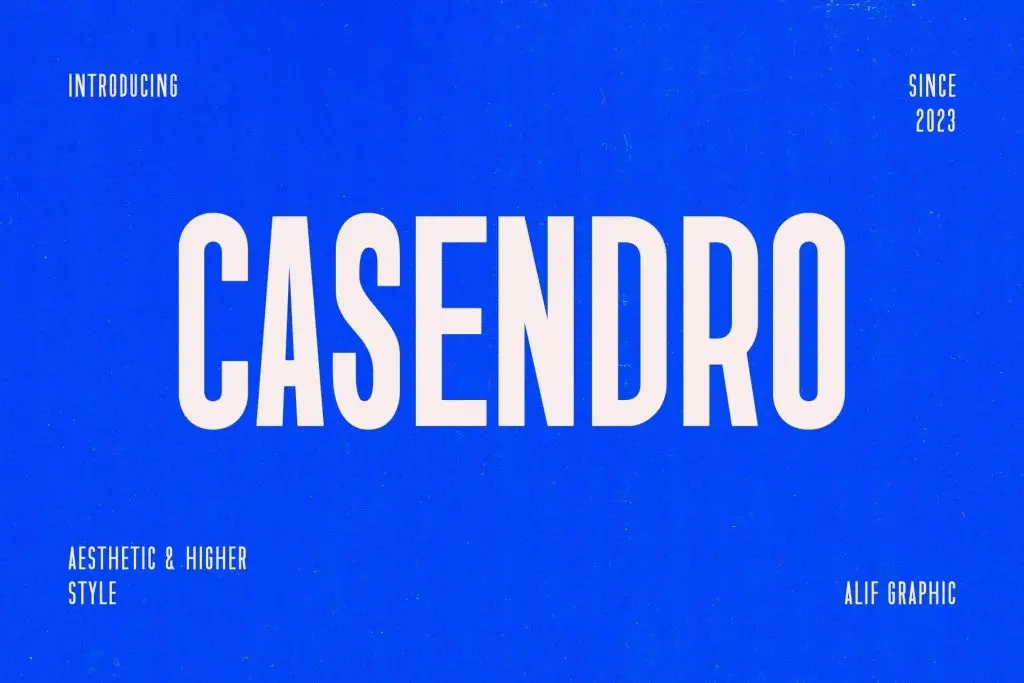
Casendro is a modern higher sans-serif font with bold, sleek all-caps styling. Perfect for impactful headlines, branding, and social media designs that demand attention and modern appeal.
2. Govers
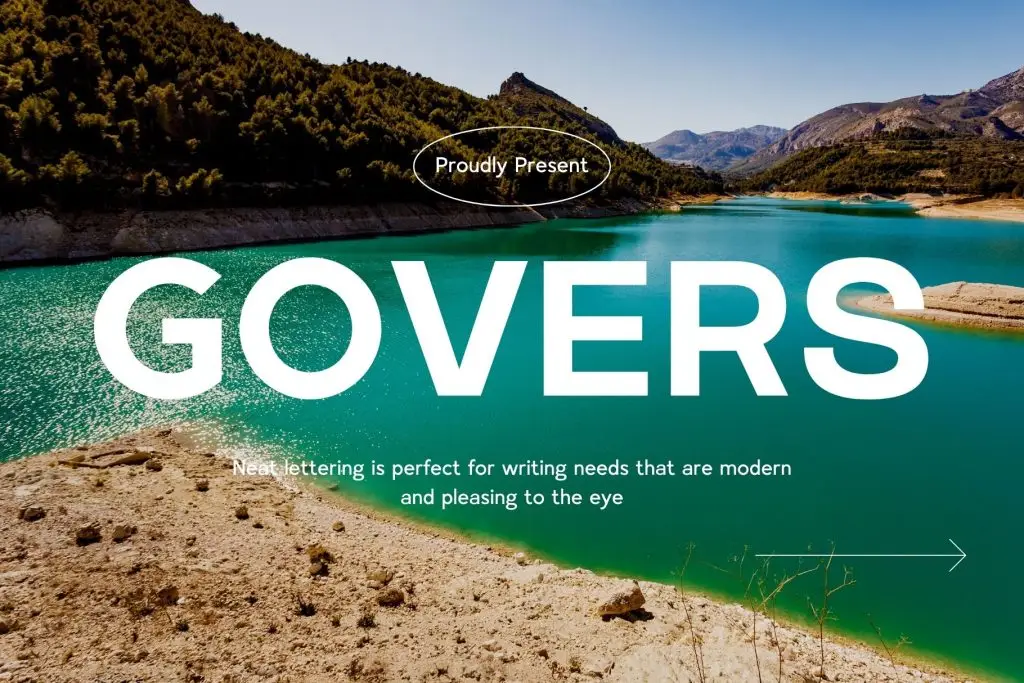
Govers is a modern sans-serif font with clean lines and balanced proportions. Ideal for web design, social media, and branding, it delivers a sleek, professional, and easy-to-read look.
3. Jacob’s
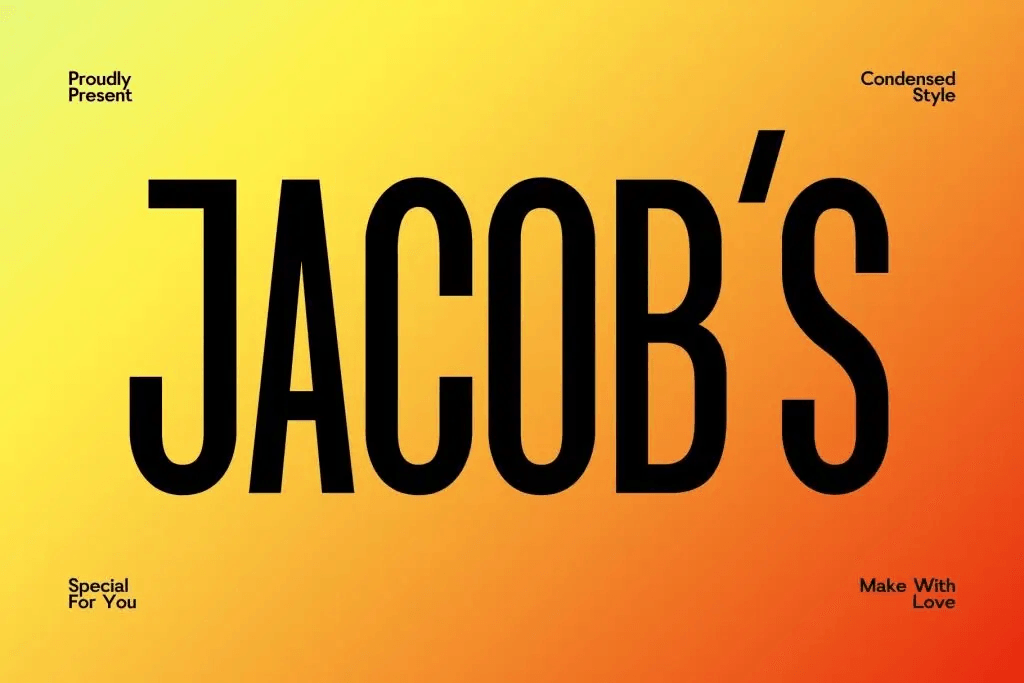
Jacob’s is a modern condensed sans-serif font featuring sleek, readable letterforms. Ideal for web design, social media, advertising, and apparel, it brings contemporary elegance and versatility to any creative project.
4. Tracey Jodgey
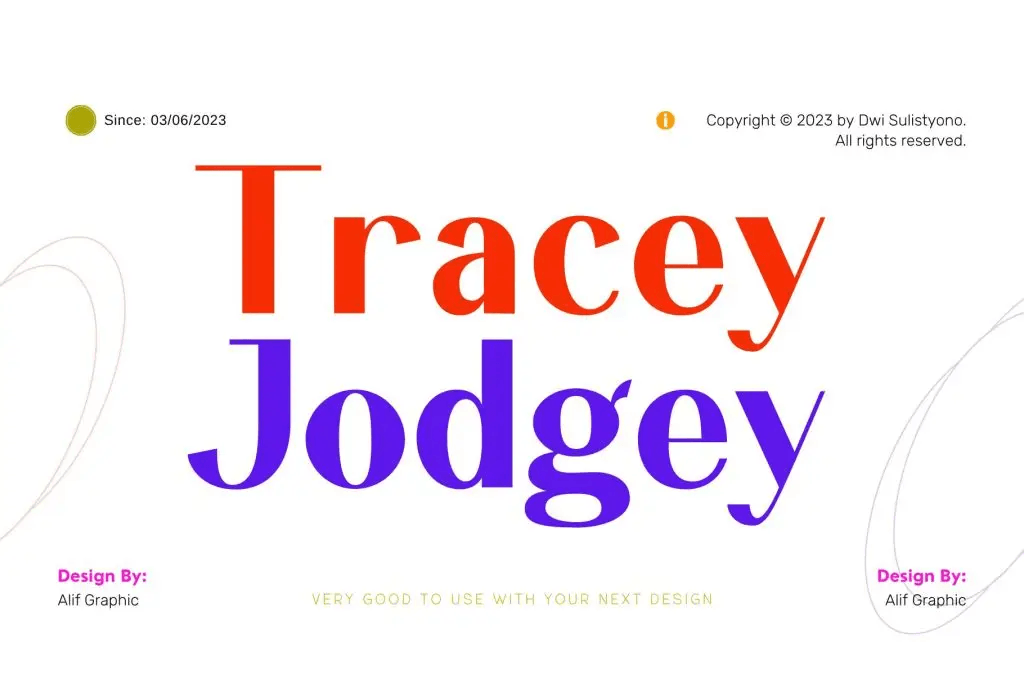
Tracey Jodgey is a modern sans-serif font that blends elegance with contemporary style. Ideal for beauty, fashion, social media, and creative projects, it elevates your typography with refined sophistication.
5. Gafhote
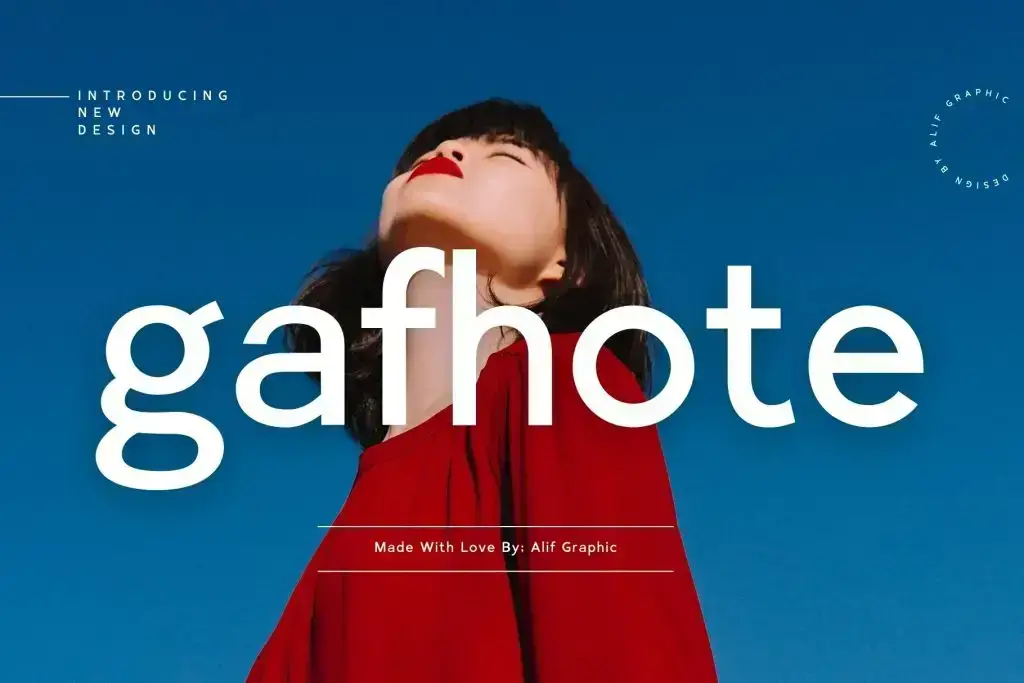
Gafhote is a modern sans-serif font featuring neat letters. Perfect for social media, advertising, and personal branding, it adds sophistication and contemporary style to your creative projects.
6. Schindler
Schindler is a modern serif font featuring elegant and meticulously crafted letters. Ideal for beauty, fashion, social media, and versatile design projects, it adds sophistication, polish, and a contemporary flair to your creative work.
7. Fishera
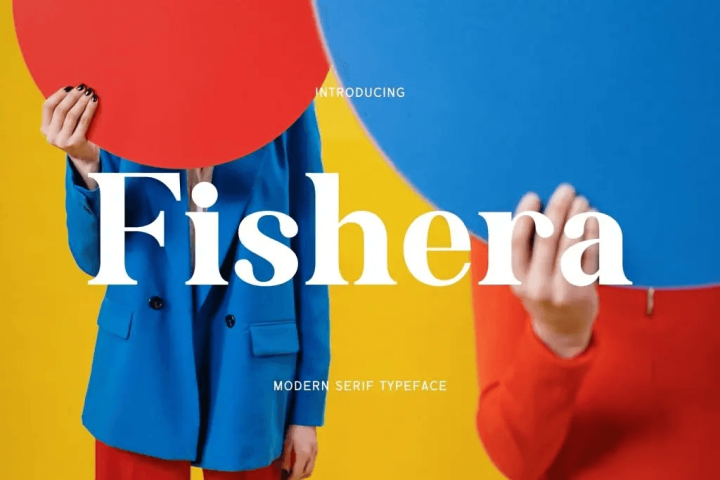
Fishera is a modern serif font with elegant, meticulously crafted letters. Ideal for beauty, fashion, advertising campaigns, and social media designs, it brings refined sophistication and timeless style to any creative project.
8. Baigont
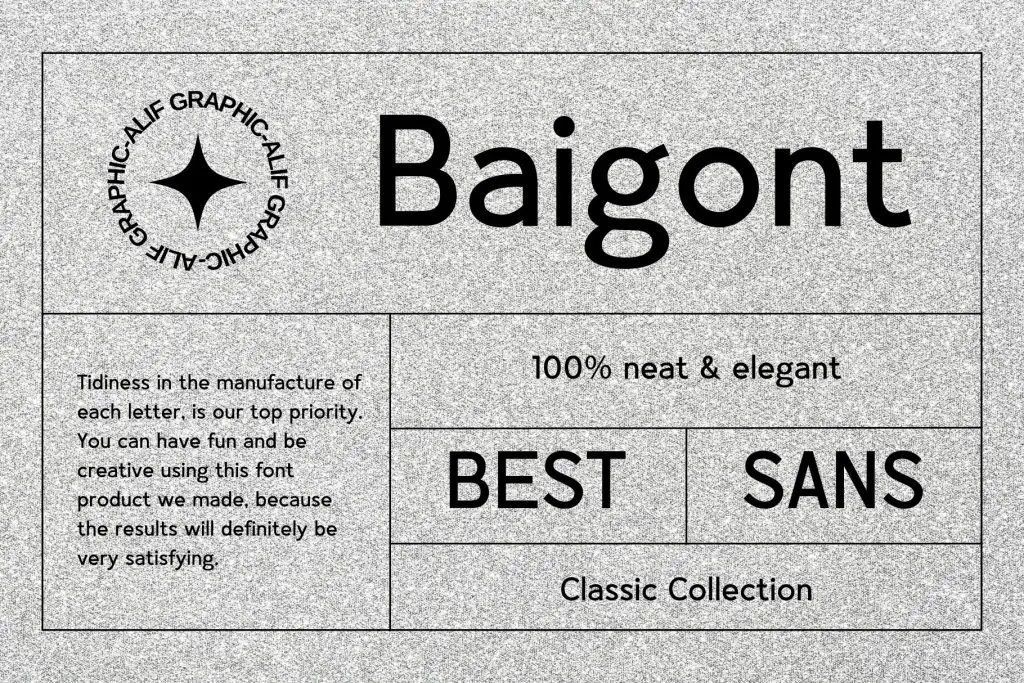
Explore the captivating ‘Baigont’ font, where a beautiful series of letters converges to elevate your writing experience. The meticulous, neat lettering is tailored to fulfill modern writing needs, offering a seamless fusion of contemporary style and visual appeal
9. Reghita
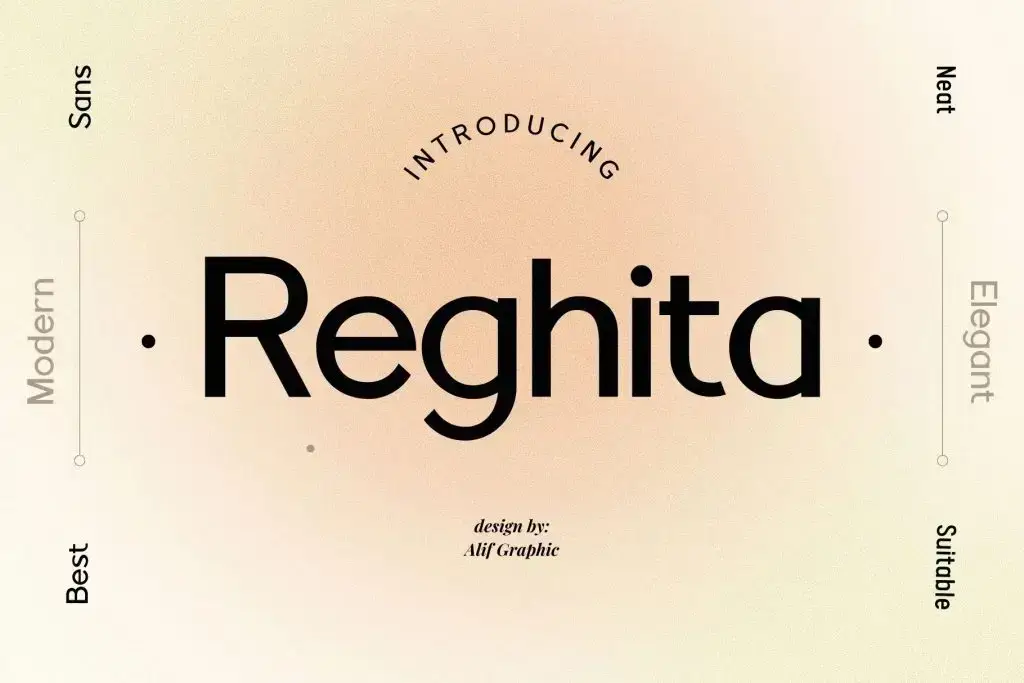
Reghita is a modern sans-serif font with clean, elegant lettering, ideal for web design, social media graphics, advertising, and creative projects. Perfect for designers seeking contemporary and polished typography.
10. Fagheto
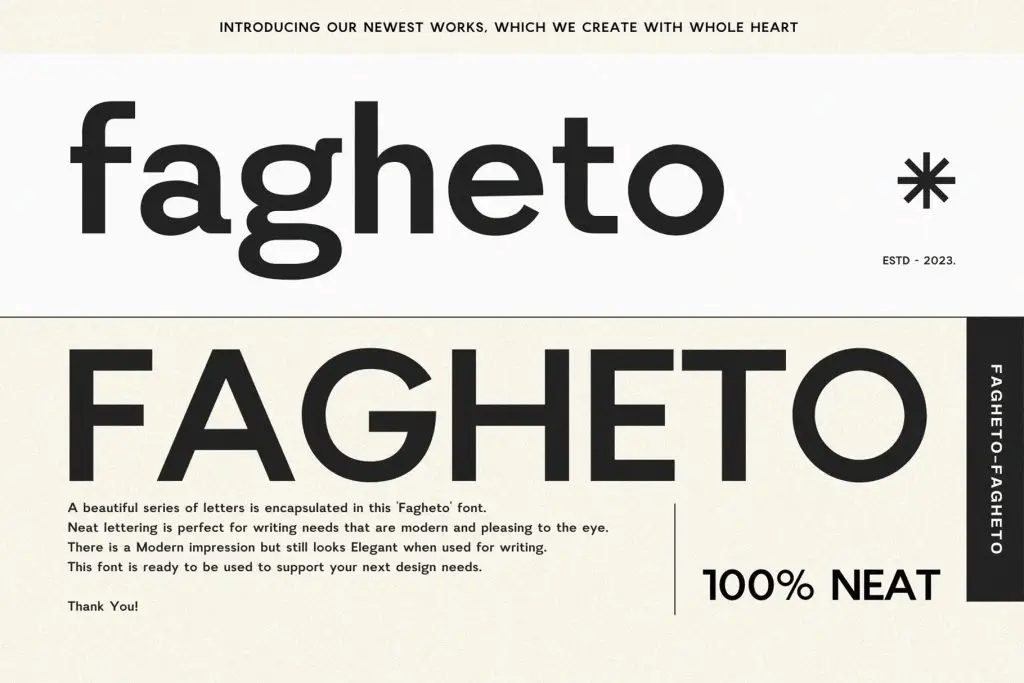
Fagheto is an elegant and bold sans-serif font ideal for wedding invitations, social media, web design, and creative projects.
Best Use Cases for Social Media Fonts
Different campaigns require different typography approaches.
Understanding the best use cases helps maximize effectiveness.
Instagram Promotions
Instagram relies heavily on visual communication.
Fonts should:
- Be readable on mobile devices
- Create strong hierarchy
- Support brand consistency
Casendro and Gafhote work particularly well for Instagram promotions.
Facebook Advertising
Facebook ads often contain more text than Instagram graphics. Typography should remain clear while maintaining visual appeal.
Govers and Schindler are excellent options for Facebook campaigns.
TikTok Marketing Content
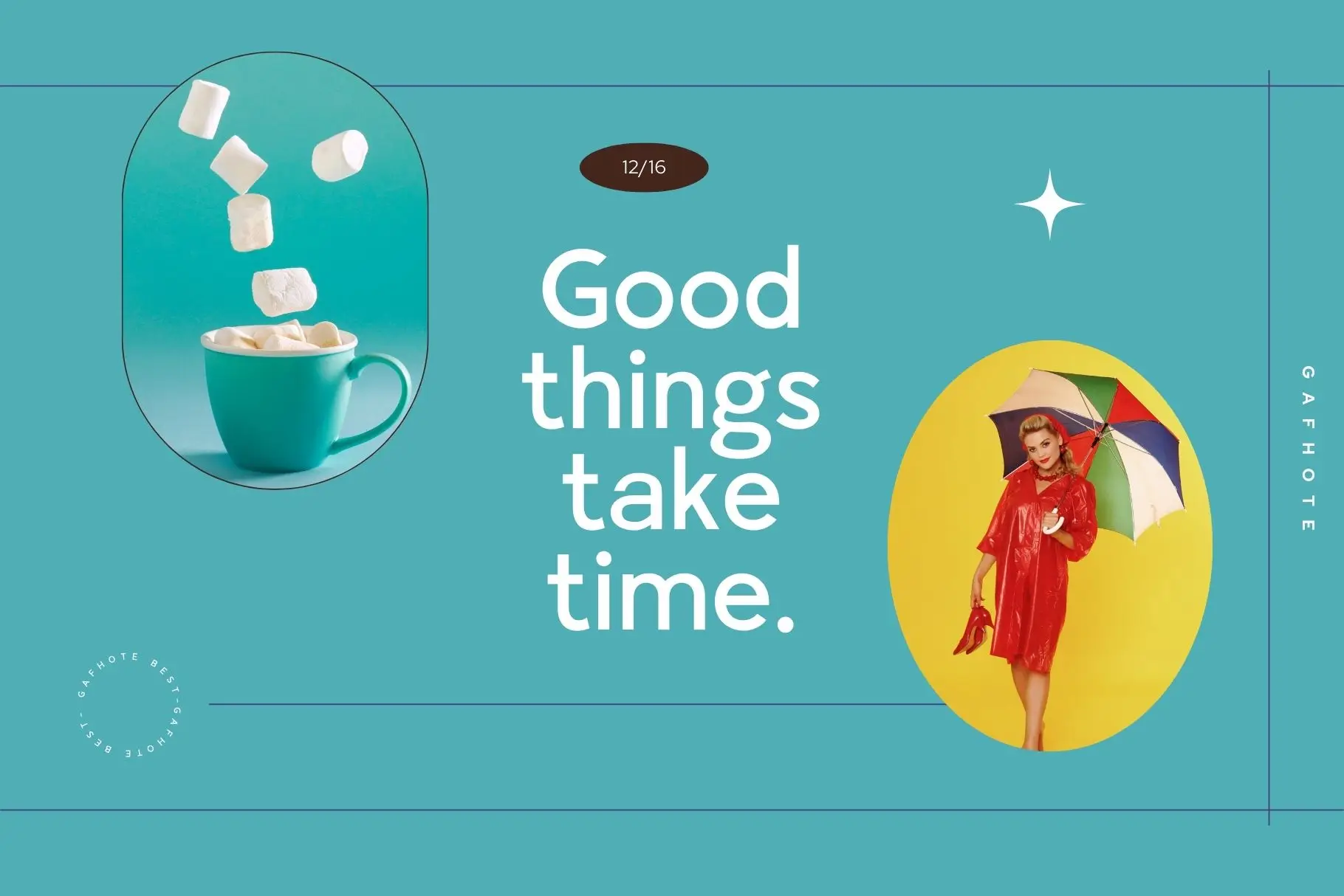
Conclusion
Choosing the best fonts for social media ads and promotions is about more than aesthetics. Typography influences attention, readability, brand perception, and ultimately the effectiveness of your marketing campaigns.
Fonts such as Casendro, Govers, Jacob’s, Tracey Jodgey, Gafhote, Schindler, Fishera, Baigont, Reghita, and Fagheto each bring unique strengths to promotional design. By selecting fonts that align with your campaign goals and pairing them thoughtfully, you can create social media content that feels more professional, engaging, and memorable.